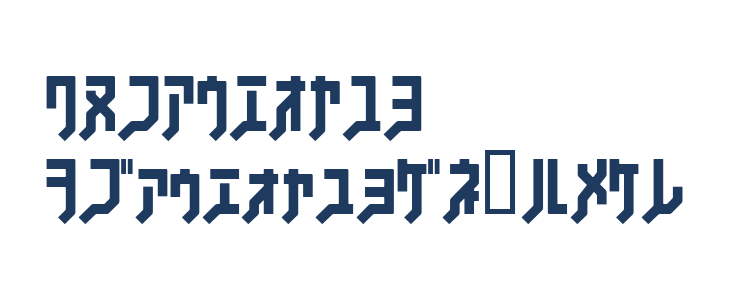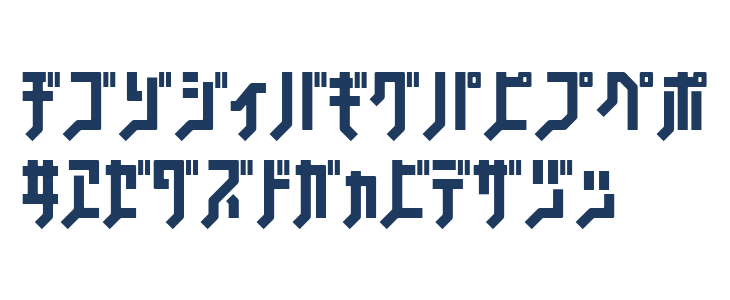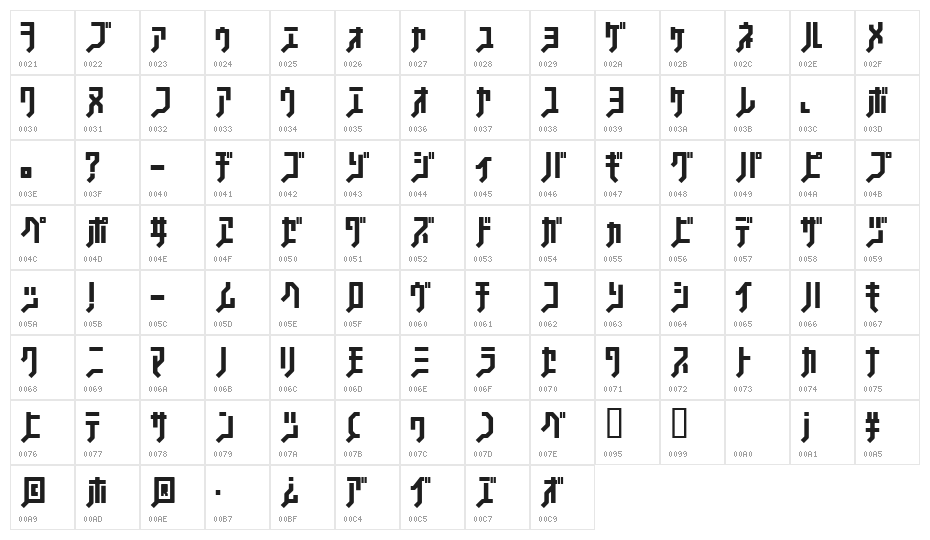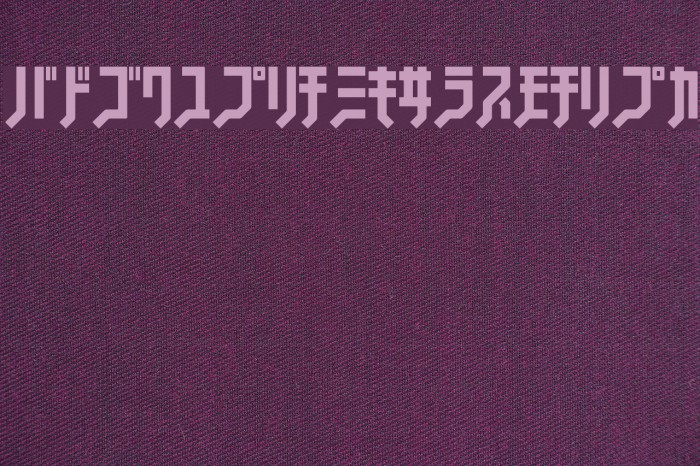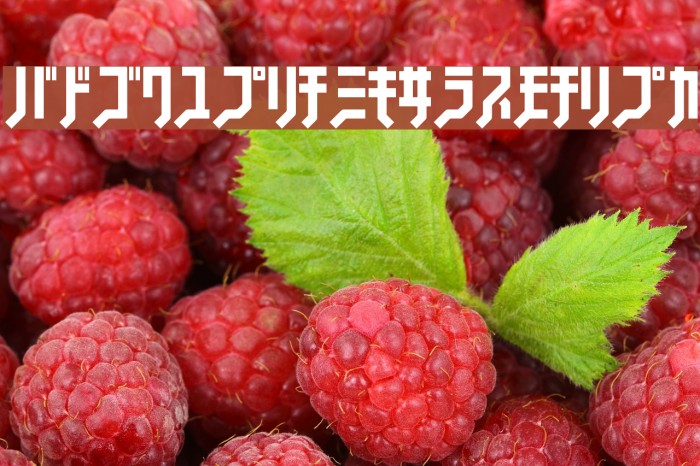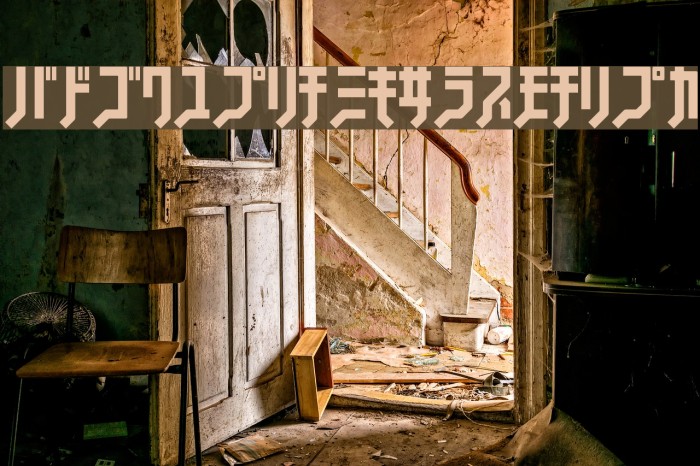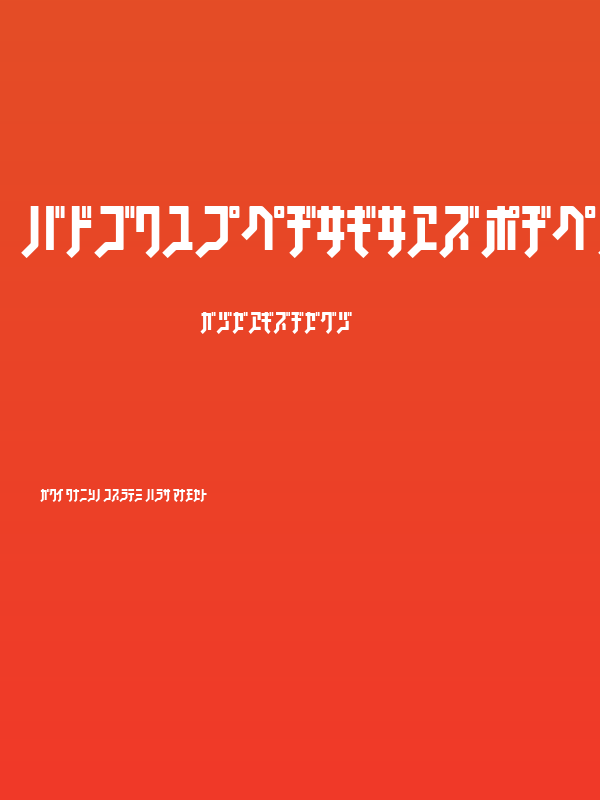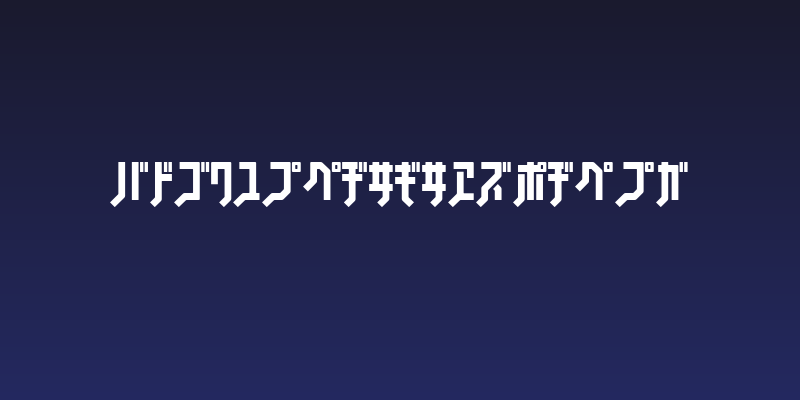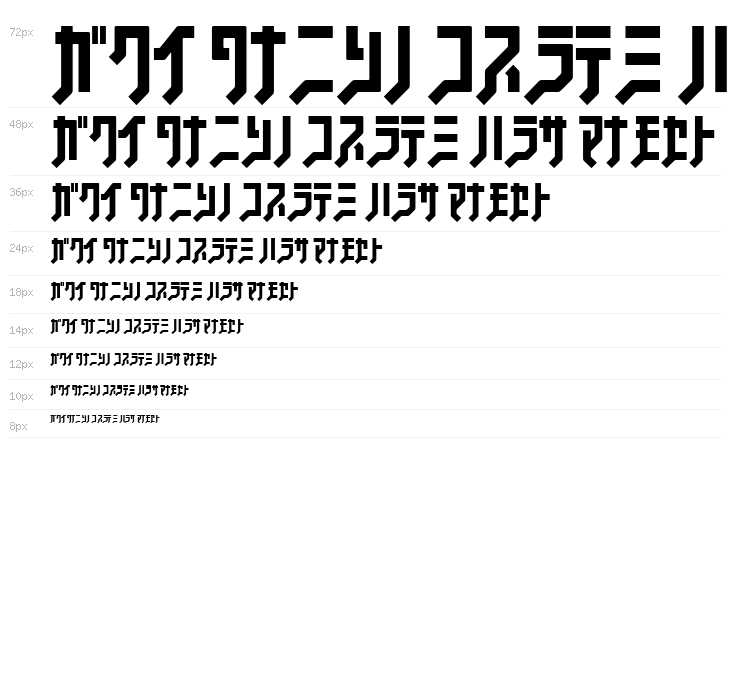
FSB08KlangNormalKt Font
FSB08KlangNormalKt Description
This font features bold, angular characters with a distinctly geometric and blocky appearance. The strokes are uniformly thick, giving it a strong and impactful presence. The characters are tightly spaced, enhancing its dense and compact look. The style is reminiscent of digital or retro-futuristic designs, making it suitable for projects that require a modern yet nostalgic touch. Its unique structure makes it stand out, ideal for attention-grabbing headlines or logos.